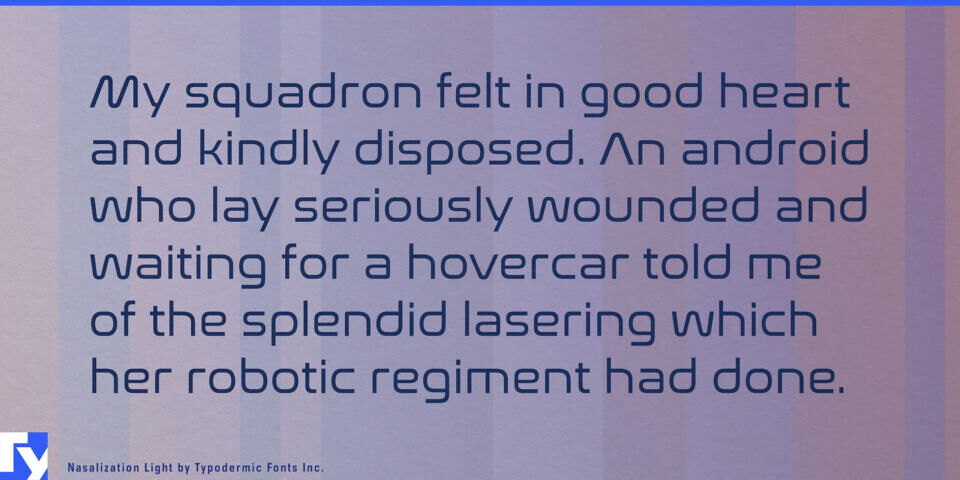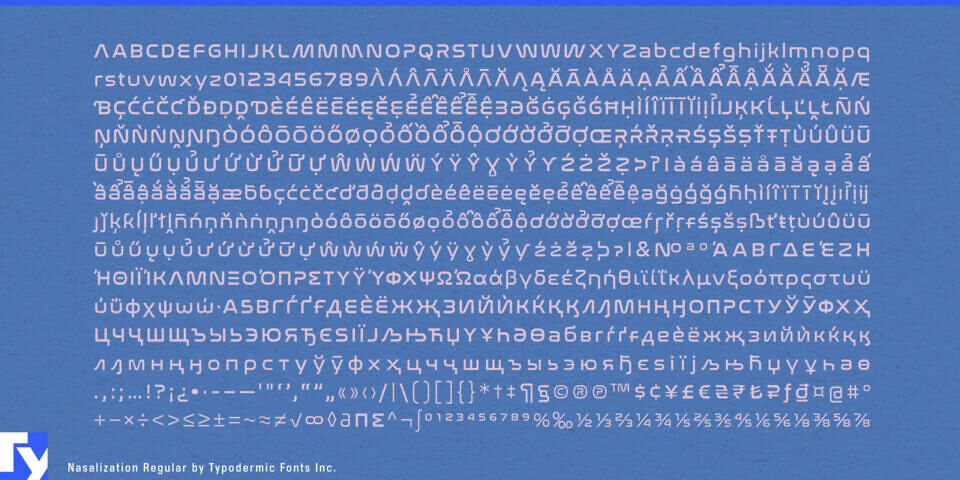
Nasalization Font
Nasalization draws from NASA’s 1975 “worm” logo, refining its modular geometry into a modern, space-age sans. First released in 1997 as an all-caps design, it has grown into a six-weight family with italics and wide language support covering Latin, Greek, Cyrillic, and Vietnamese. Its high x-height and smooth proportions ensure clarity across scales, while contextual alternates and optional cross-barred forms expand stylistic control. Sleek yet readable, Nasalization carries the precision of aerospace design into branding, interfaces, and titles that look toward the future.